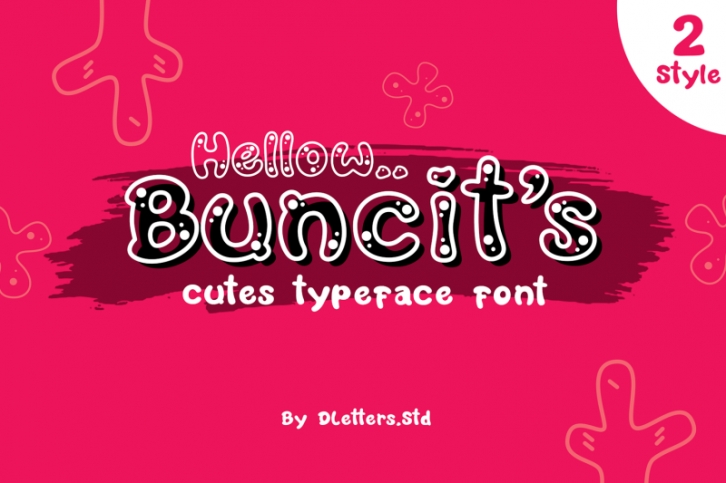
Hellow Buncit’s is two-layered font solid and holes. Unique and funny style custom font It’s very good for cartoon logos, snack food products, short titles, children’s books, and greeting cards. Created for the cutes celebration and fun.
The font includes uppercase, lowercase, numbers, punctuations, and has multilingual support.